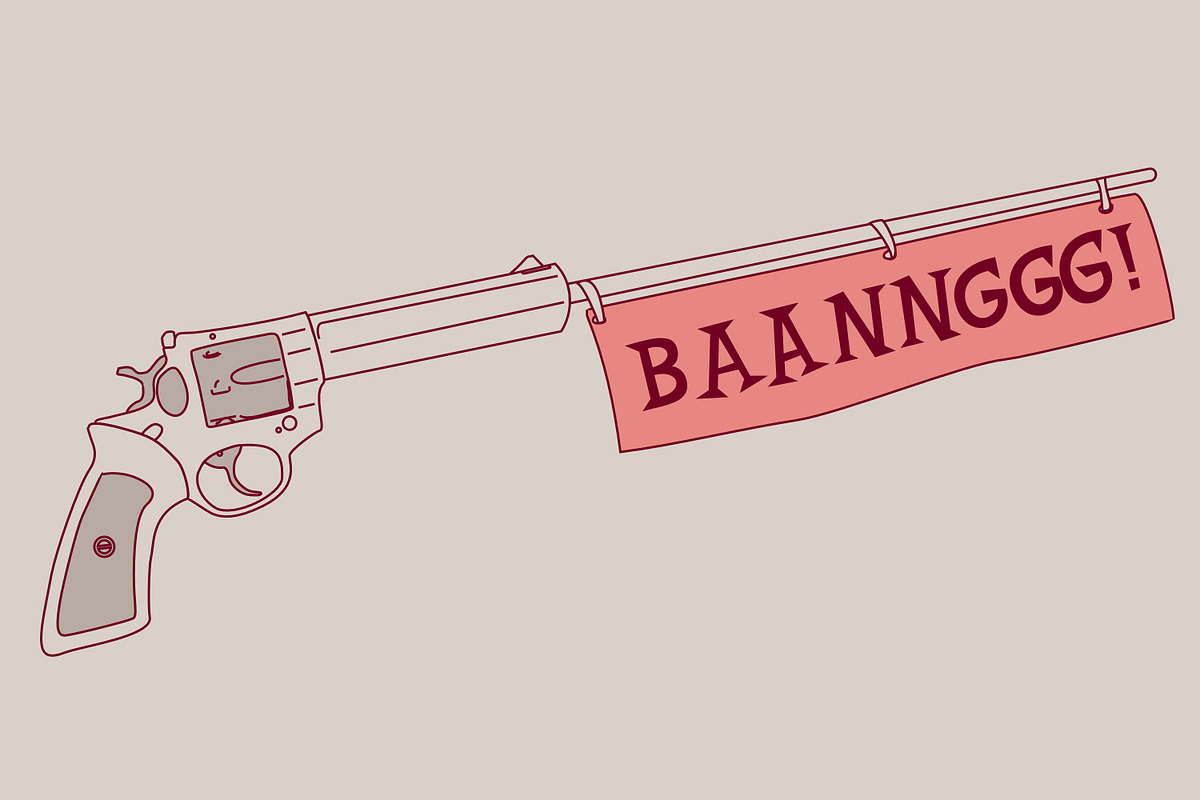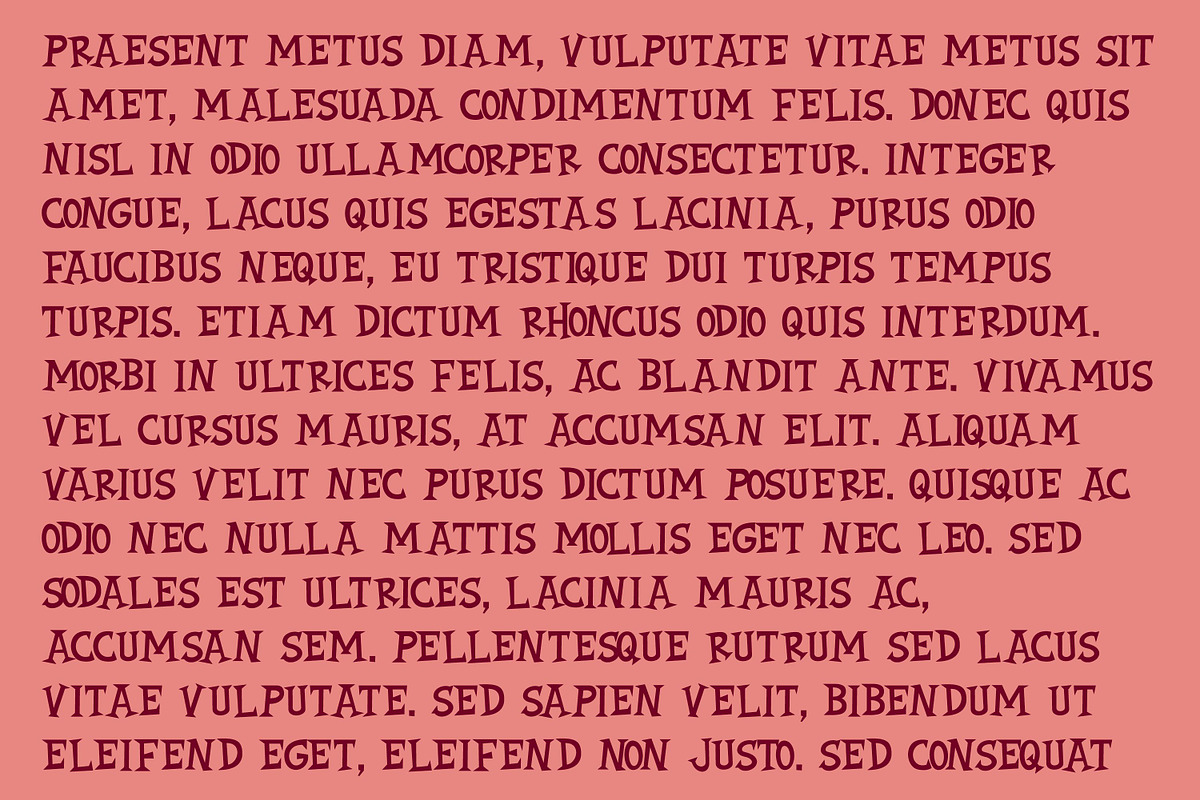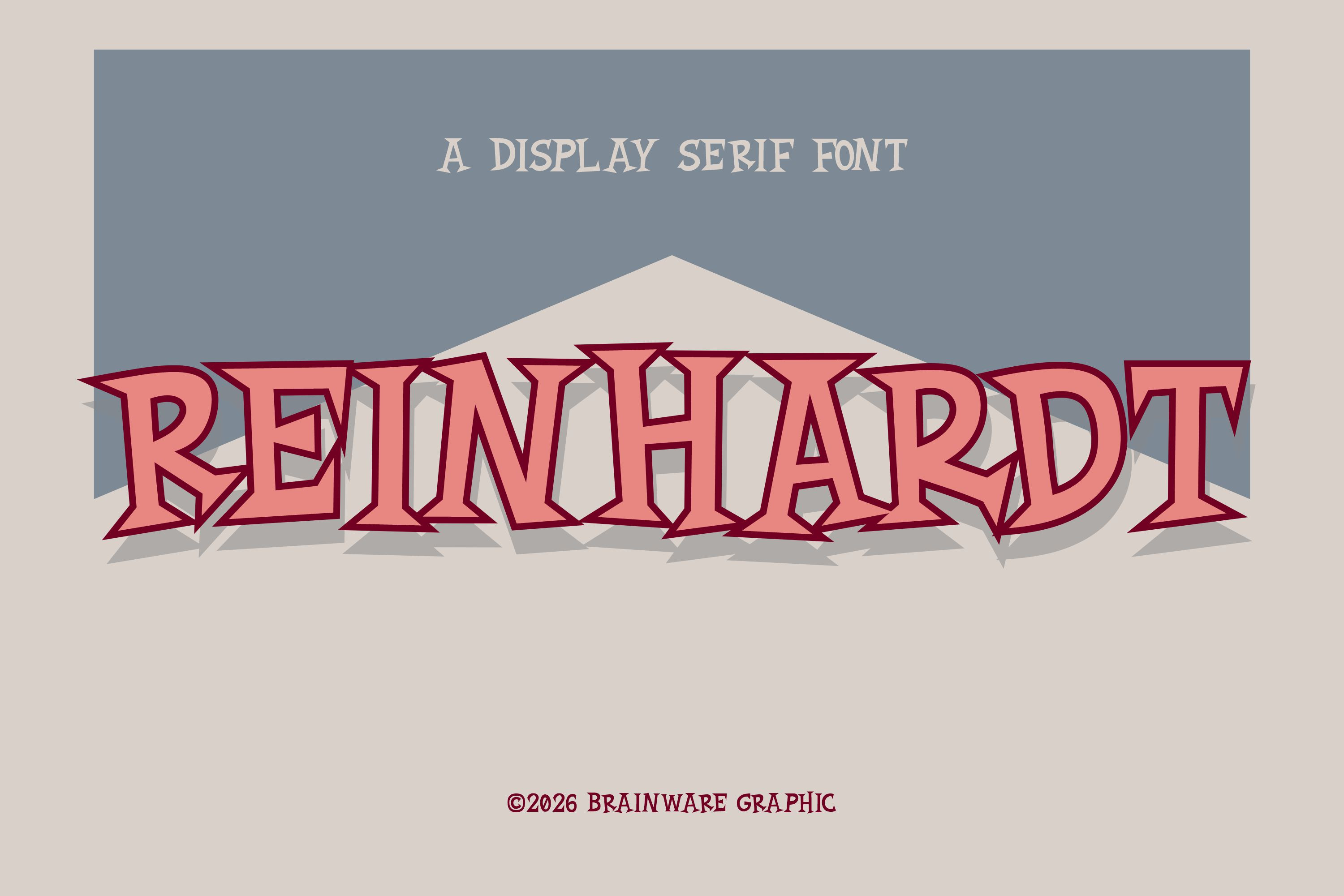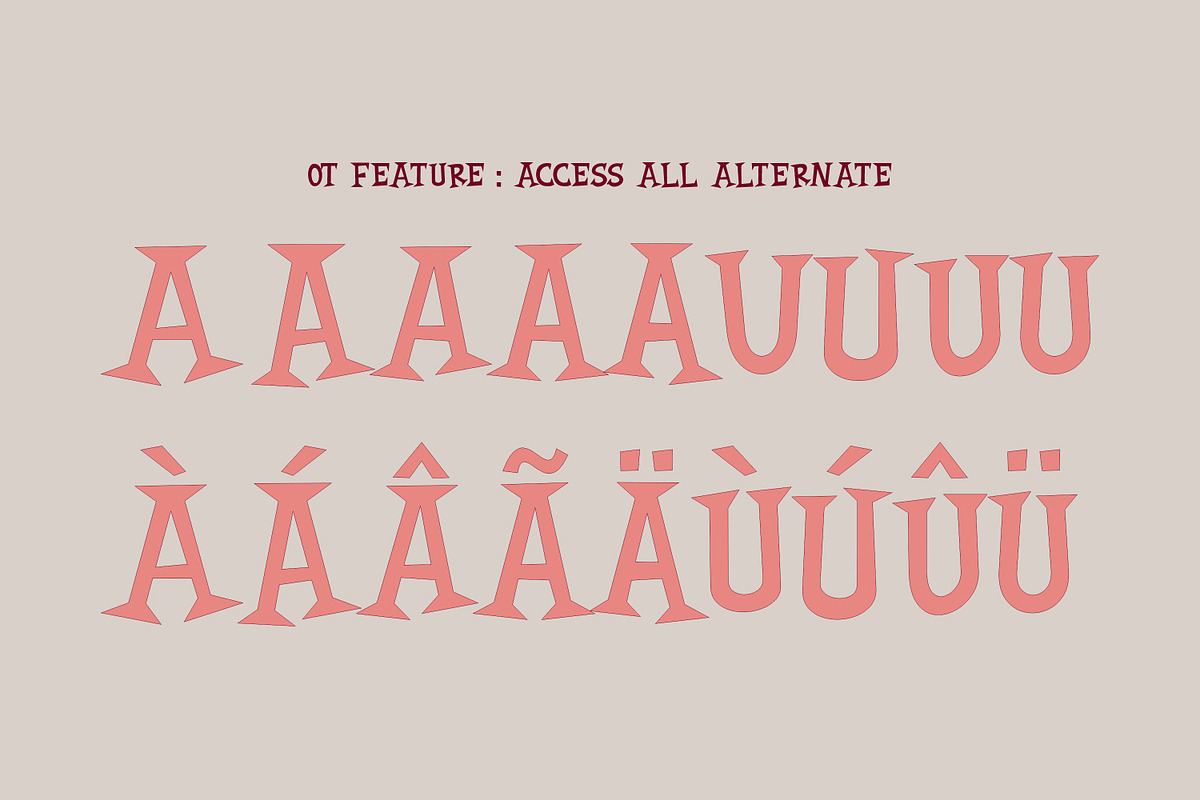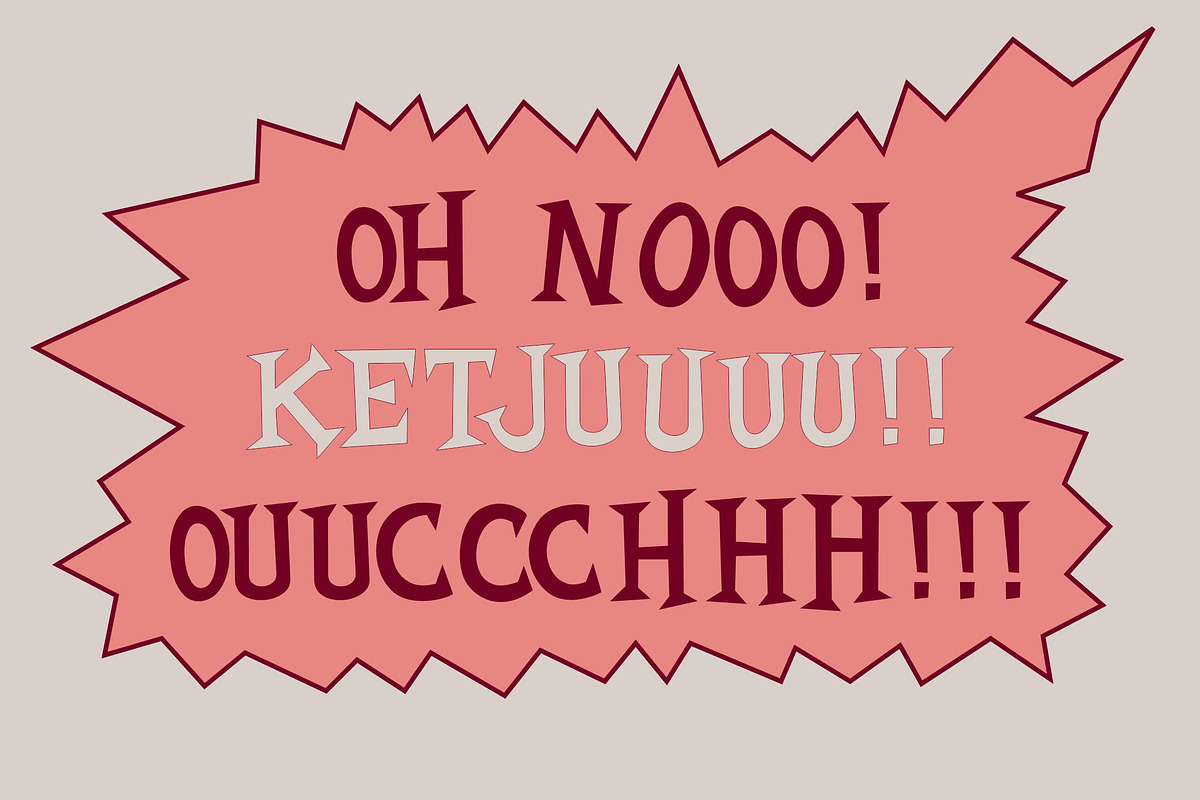
REINHARDT Font
Reinhardt is a ransom fancy display serif font with sharp serif but unique, fancy and playful. Inspired by retro vintage lettering and illustration.
Reinhardt featured with a lot of alternate on each character / alphabet, which can be used to make handcrafted, dynamic, and playful feelings.
This font can be used for logotype, branding and other purpose.